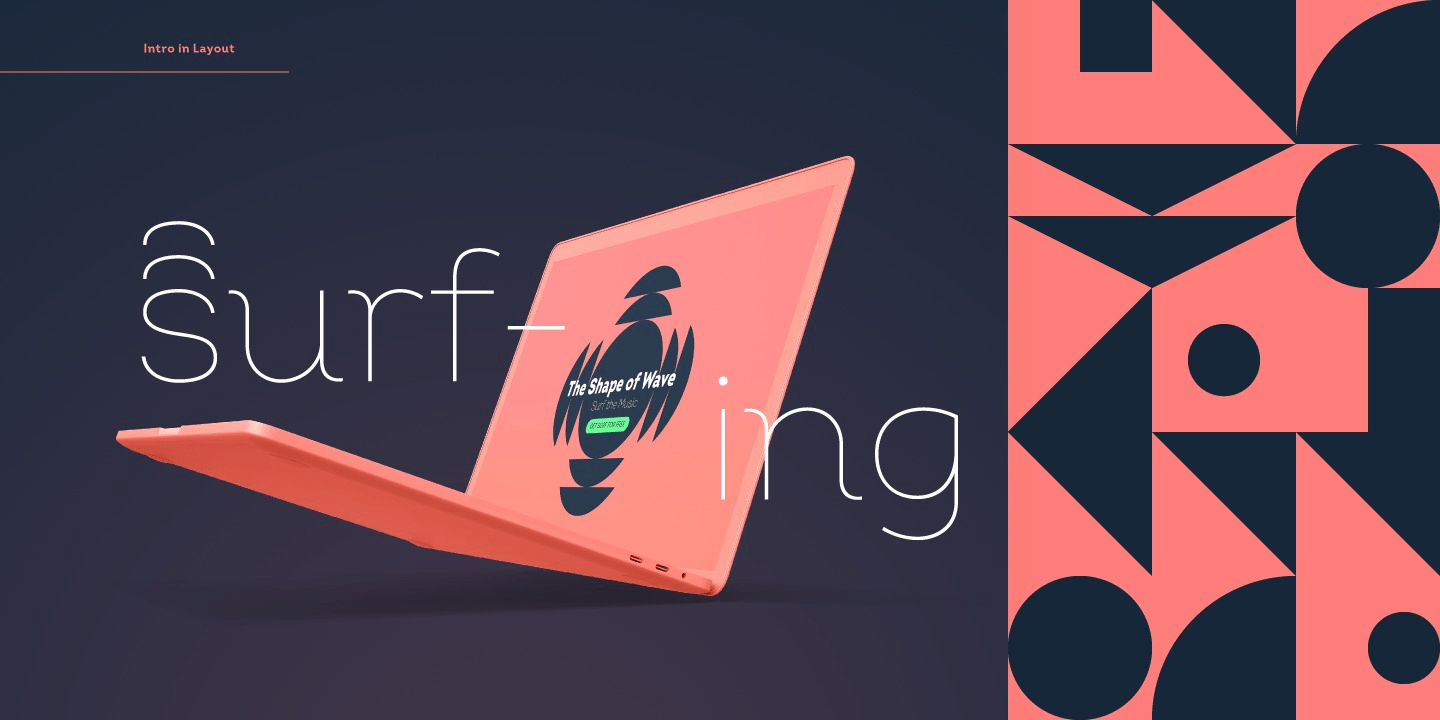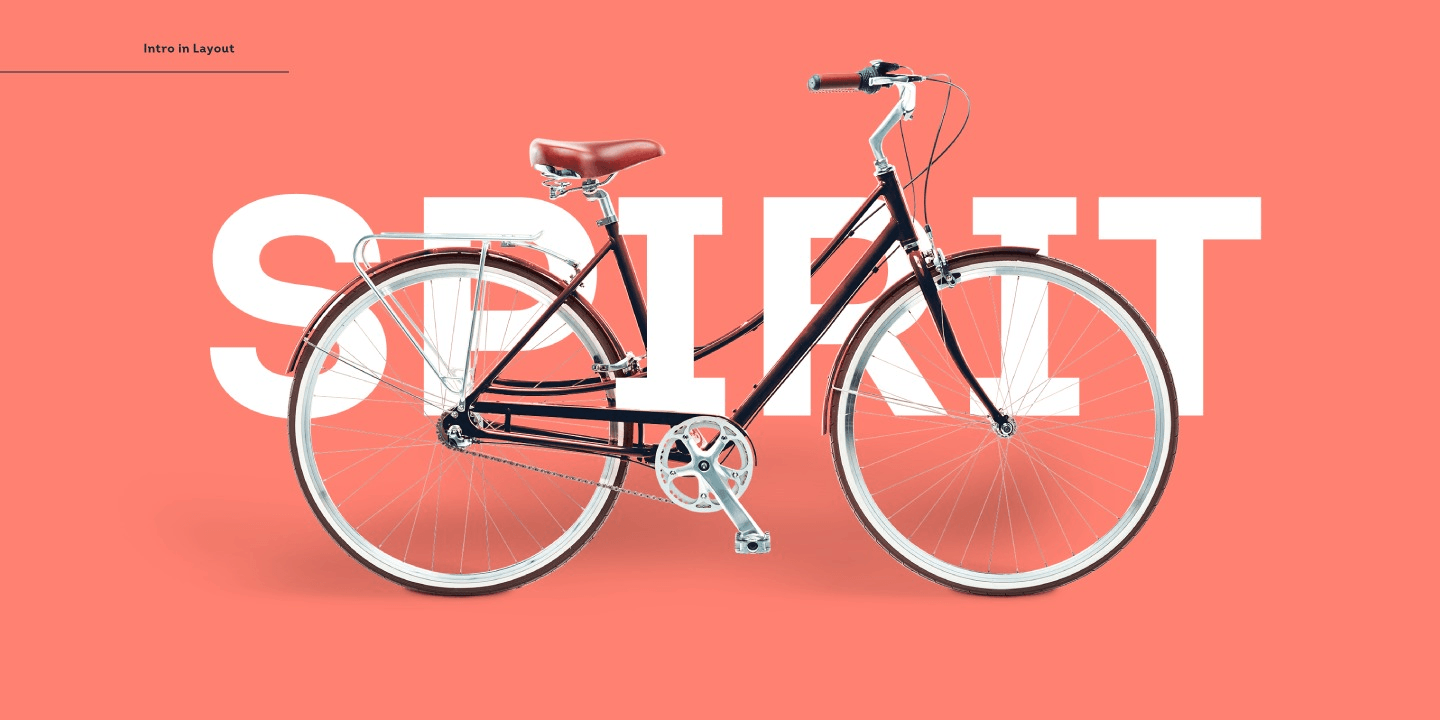
Intro
About Intro
The Intro font family consists of 26 unique font styles and weights. The family is characterized by excellent legibility both in print and on the web, a well-finished geometric design, optimized kerning, etc. Intro is most suitable for headlines of all…